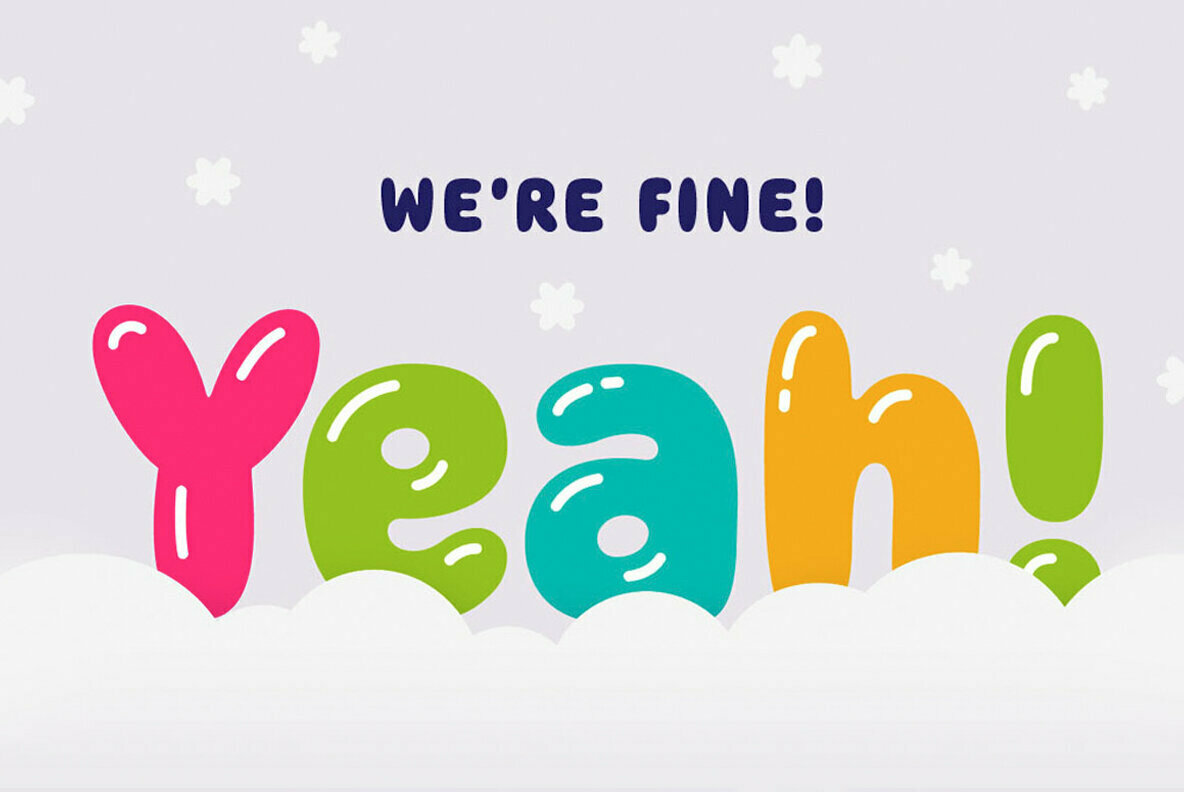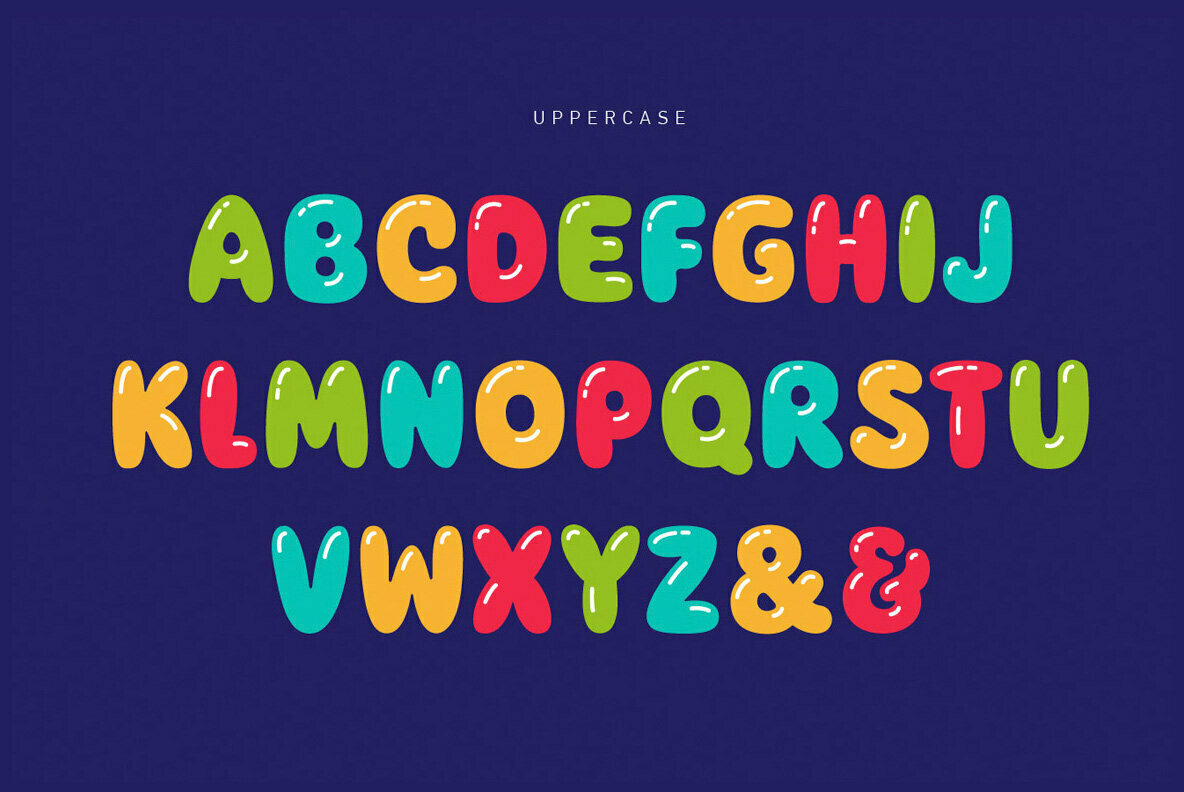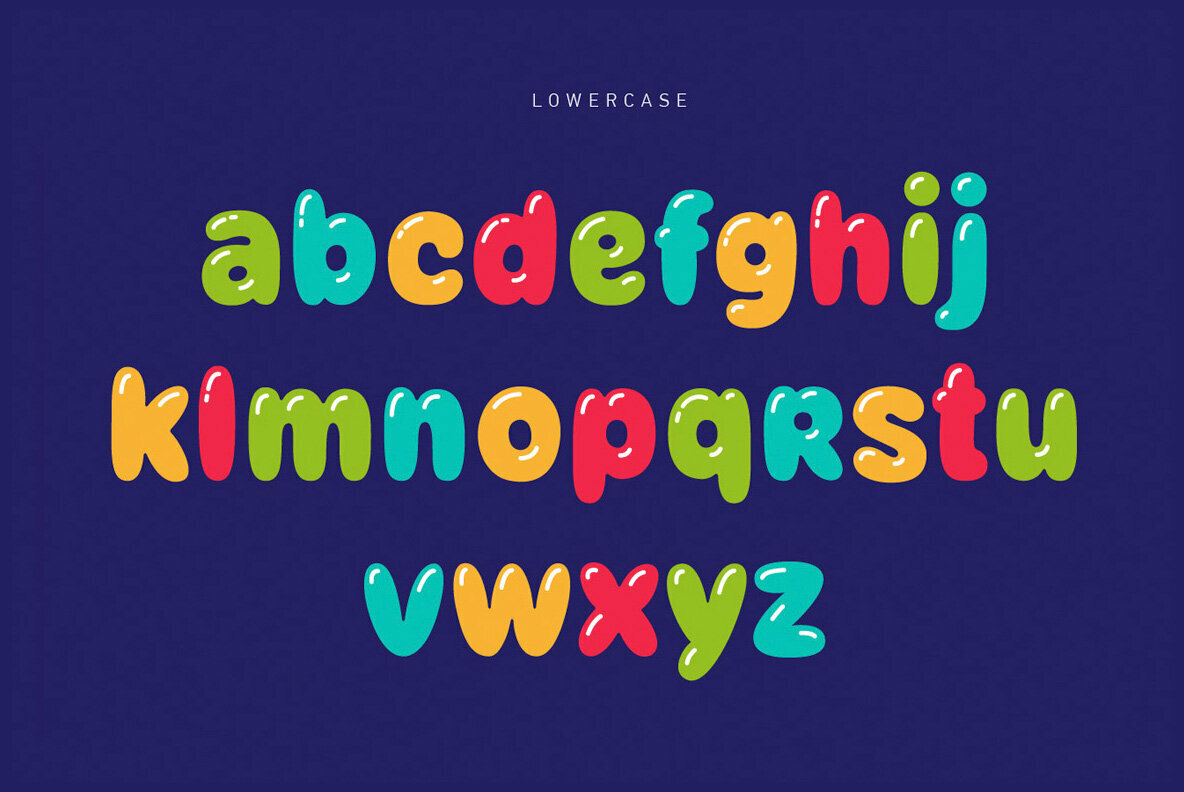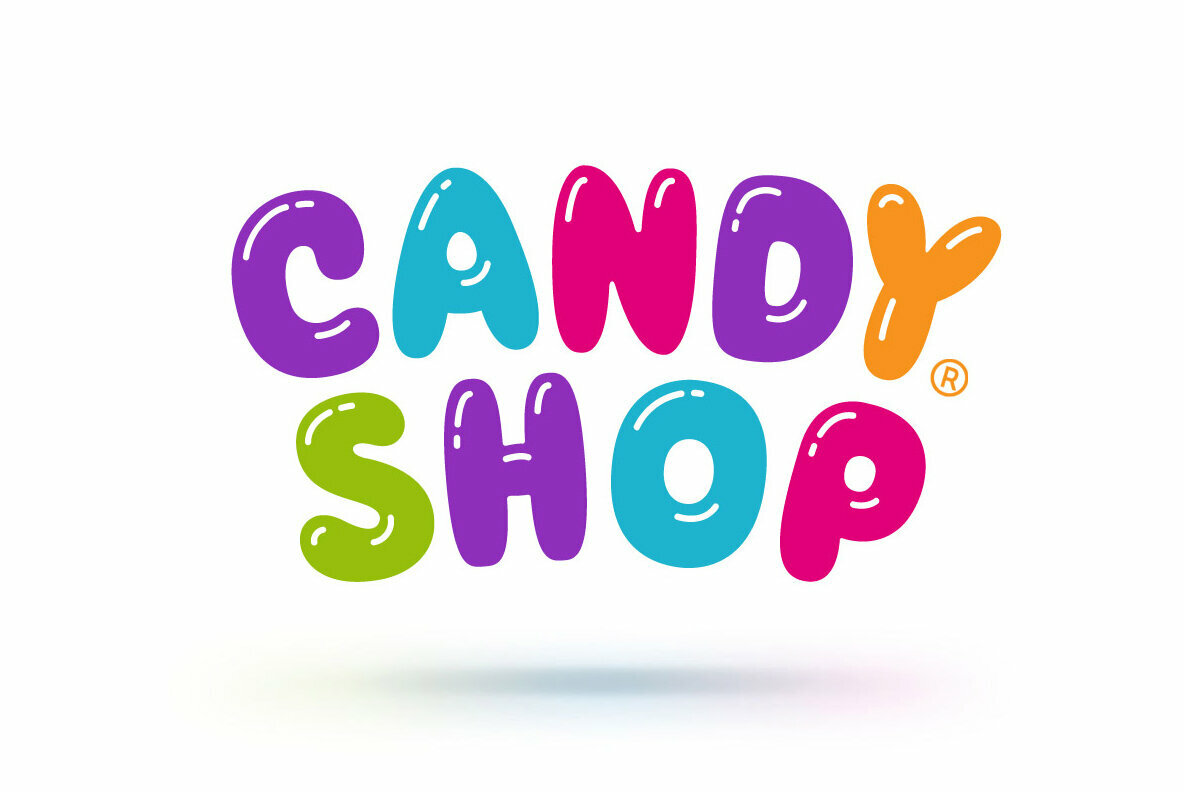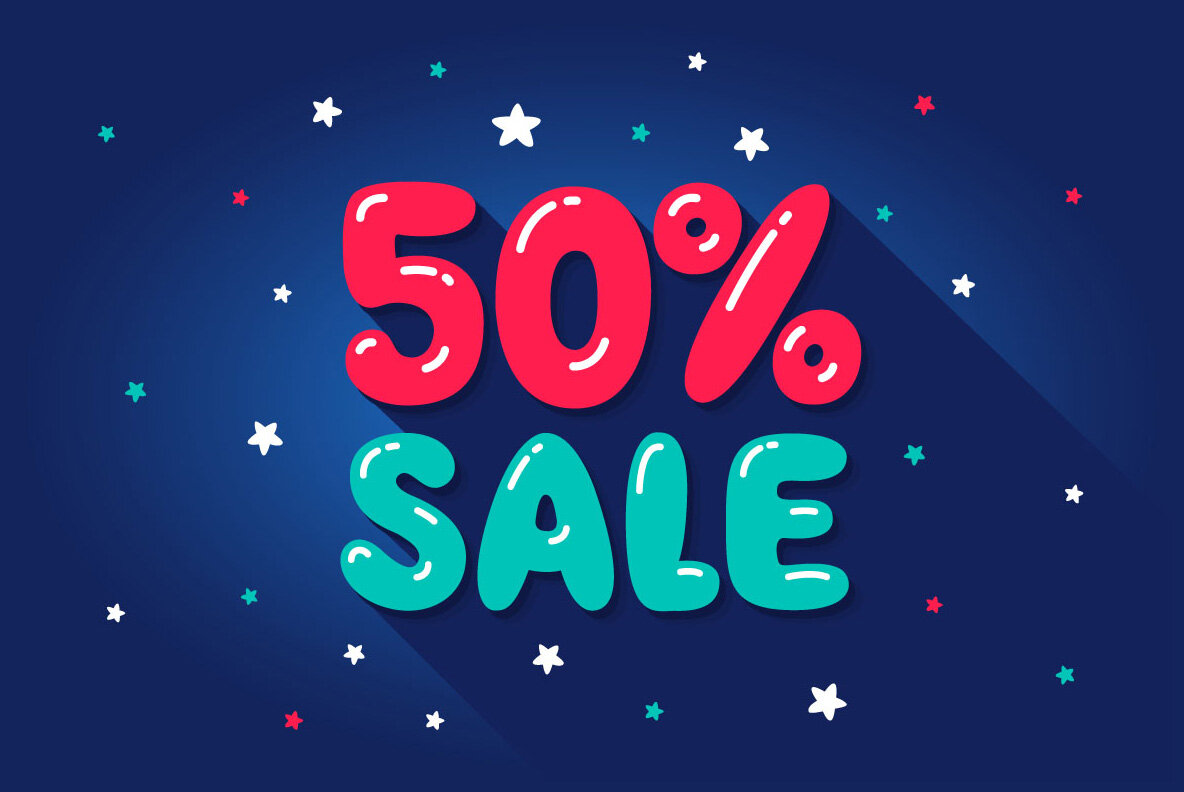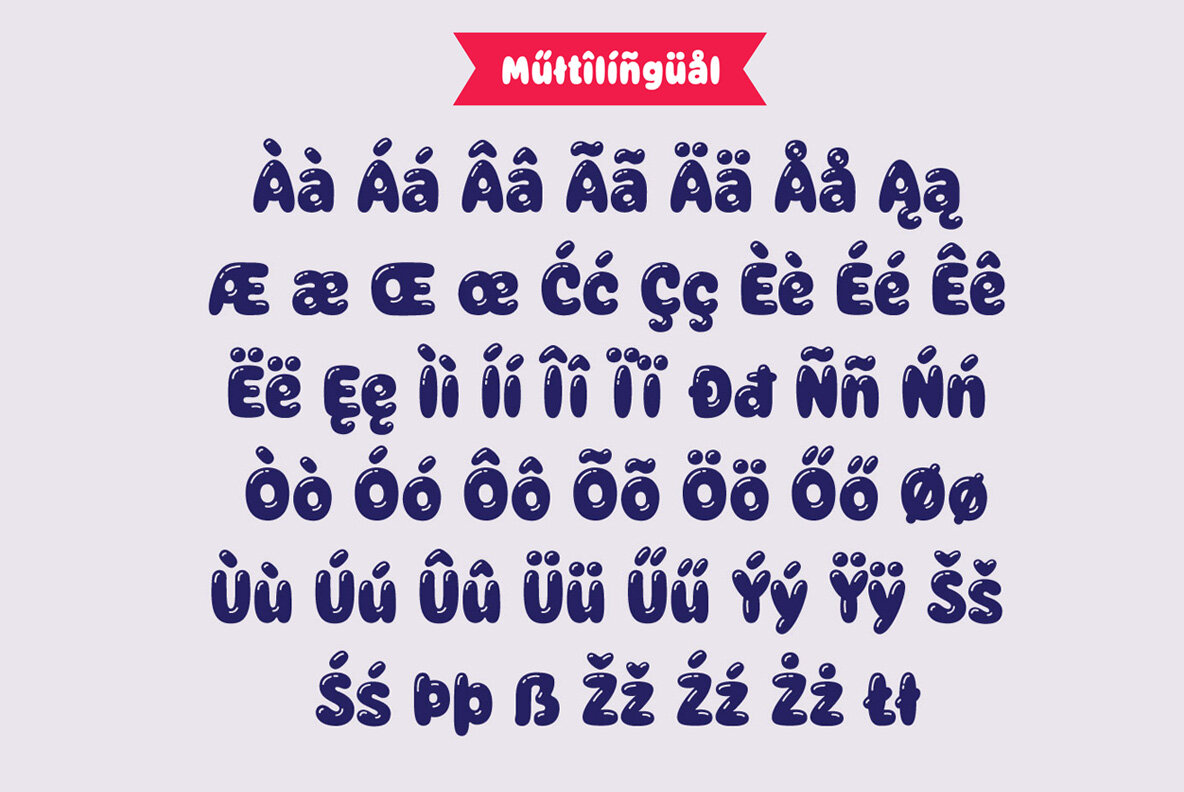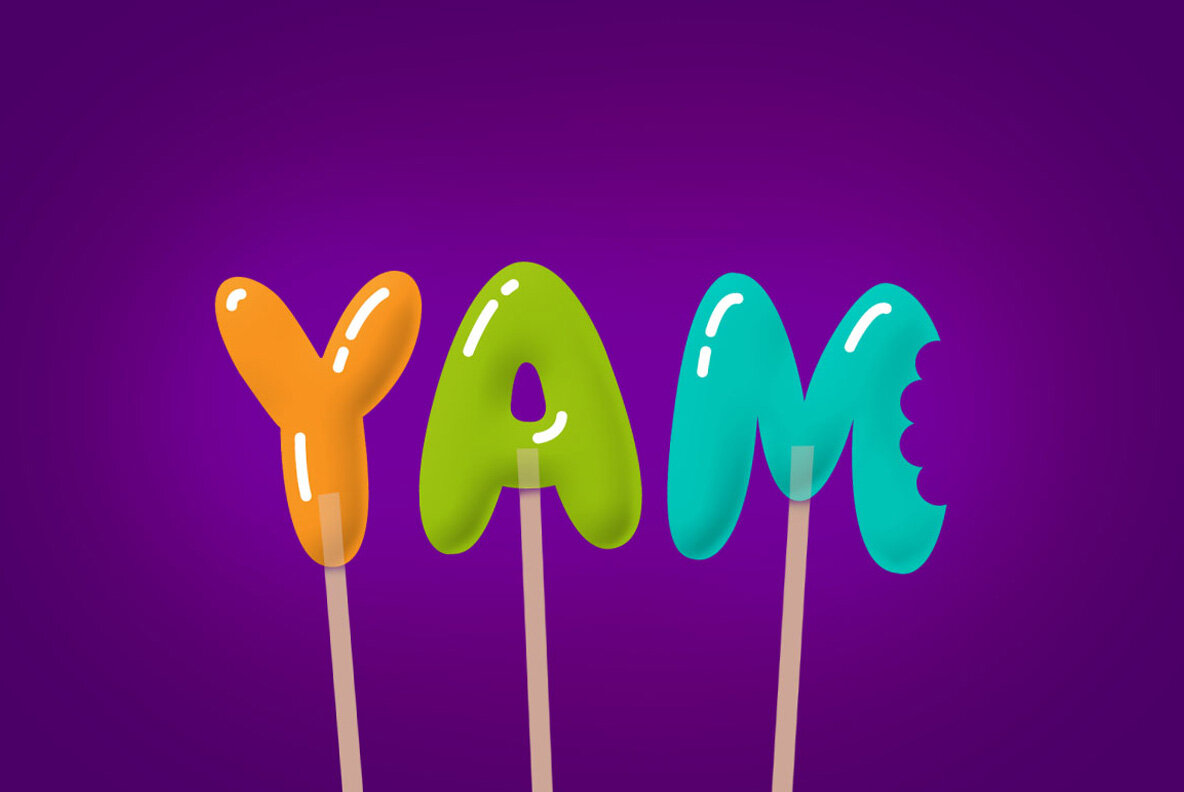
Balloon Font
Balloon is two-layered font with glare. It's very good for cartoon logos and short tittles, children books and greeting cards. Created for the celebration and fun.
Font includes uppercase, lowercase, numbers, punctuations, and has multilingual support of Western european characters.